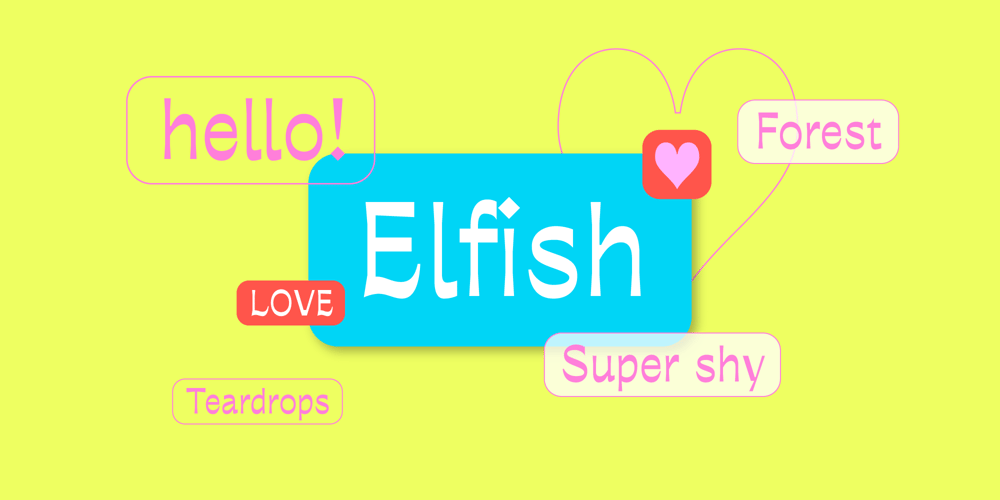
COS Elfish
COS Elfish font
COS Elfish Font Family was designed by Juhyun Lee and published by Cosmope Type. COS Elfish contains 1 styles and family package options. COS Elfish is a typeface with stroke contrast and has a unique shape. It has a structure that is well suited for display purposes. It has small serifs throughout and features curvilinear elements in some letters. It is suitable for use in various media such as unique and individual graphic design or web design.